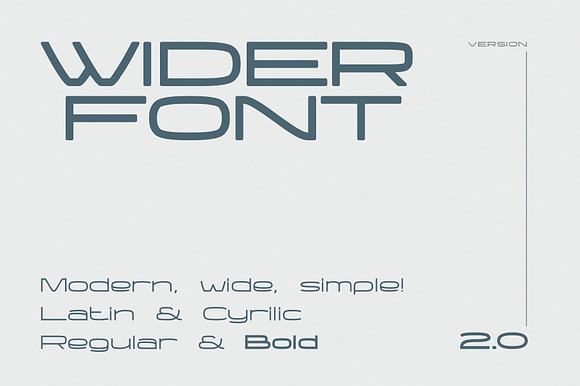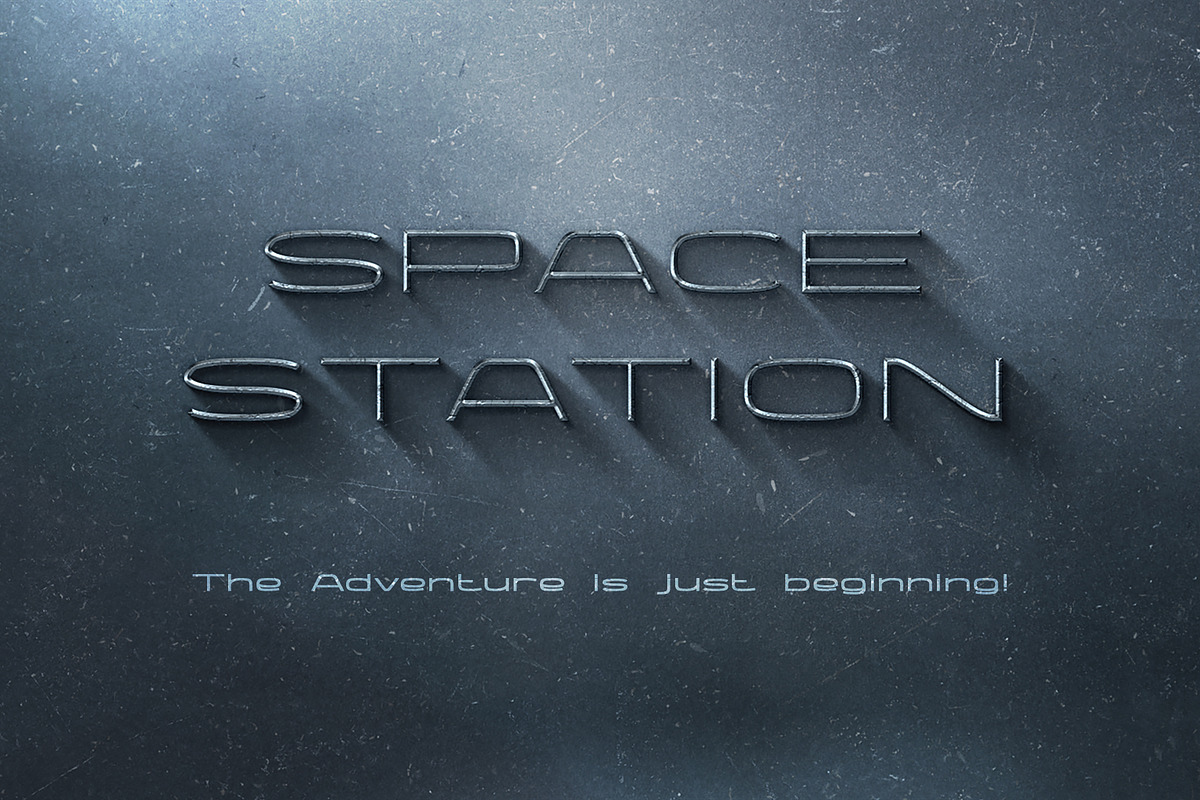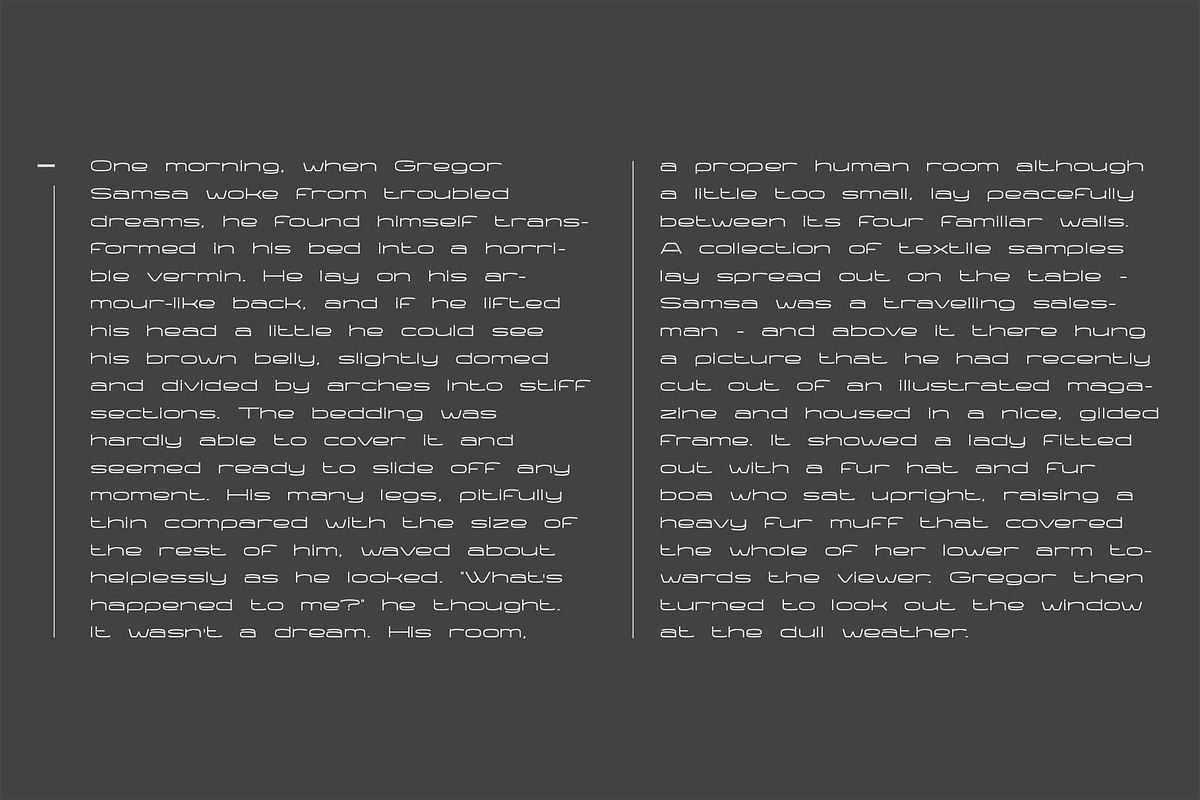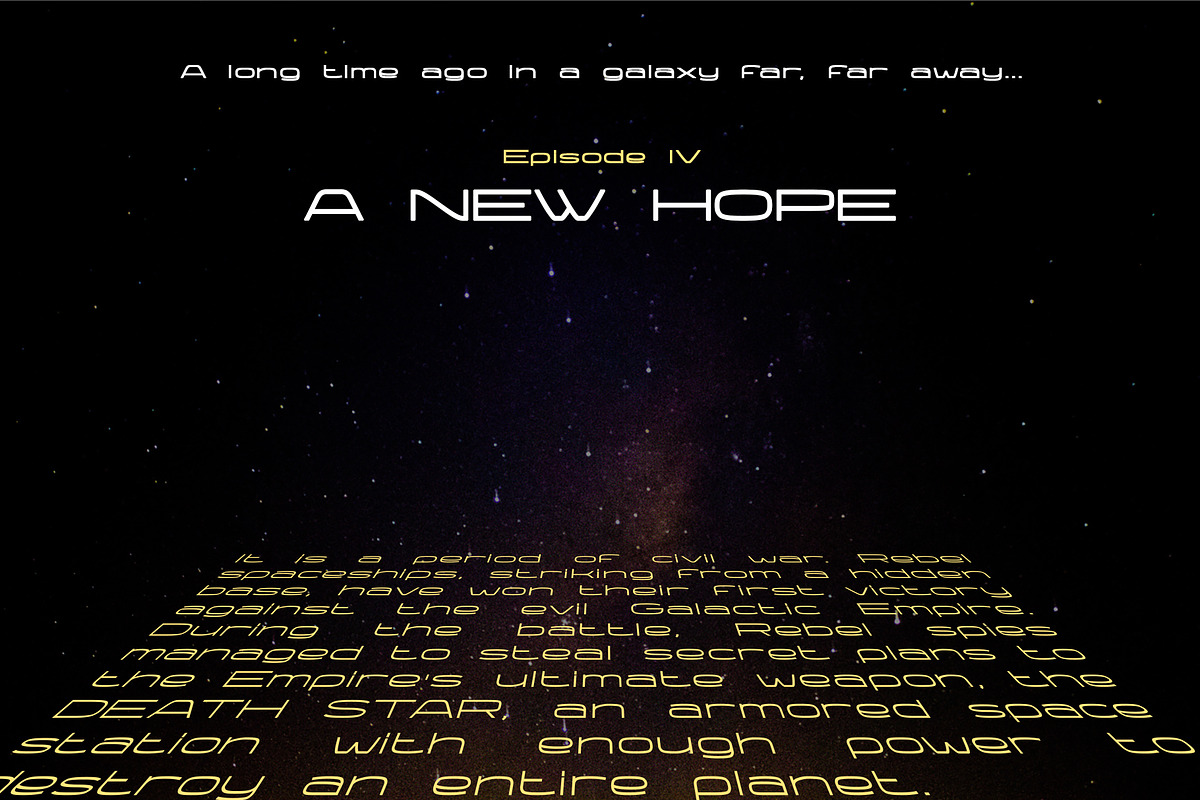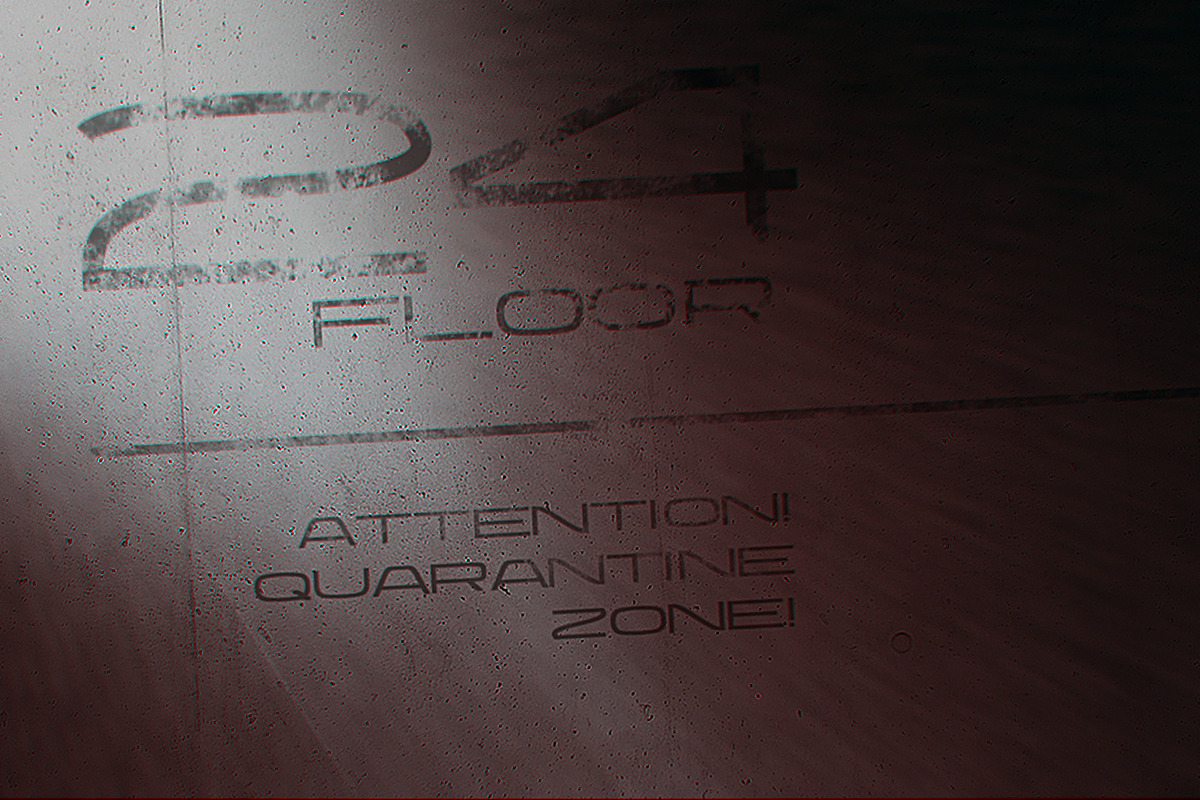
Wider | Modern wide font
Wider is a geometric extra wide sans serif font. Well kerned. Including cyrillic. Perfect for logotypes, posters and app.
Why Wider | Modern wide font is worth a look
Wider | Modern wide font by Level up fits naturally into Branding, posters, packaging, typography.